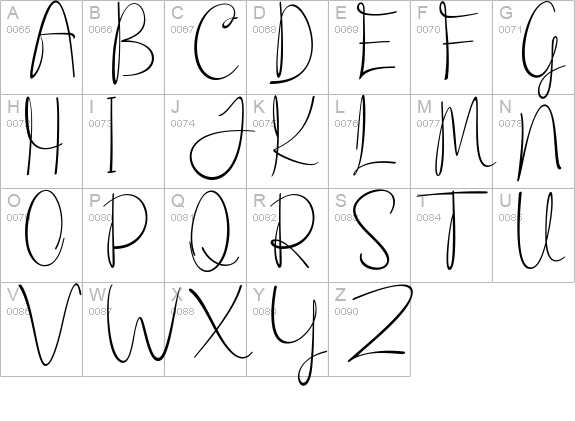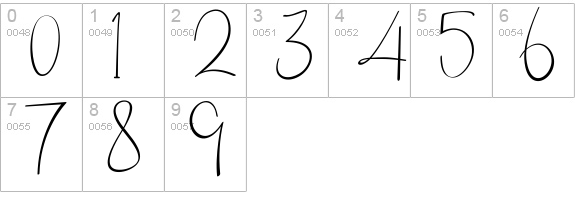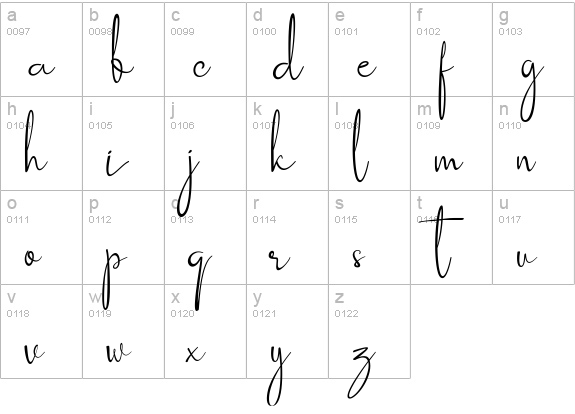
Socialitta Font Details
Socialitta is a free for personal use font in the Script > Calligraphy category, designed by Rabas Design. It has been downloaded 867 times and is available for Windows, Mac and Linux.
Introducing Socialitta font, a stylish and modern typeface designed to elevate your designs to the next level. This sleek and elegant font features clean lines and a sophisticated aesthetic that will make your projects stand out. Whether you're creating branding materials, social media graphics, or website designs, Socialitta font is the perfect choice to add a touch of class and professionalism.